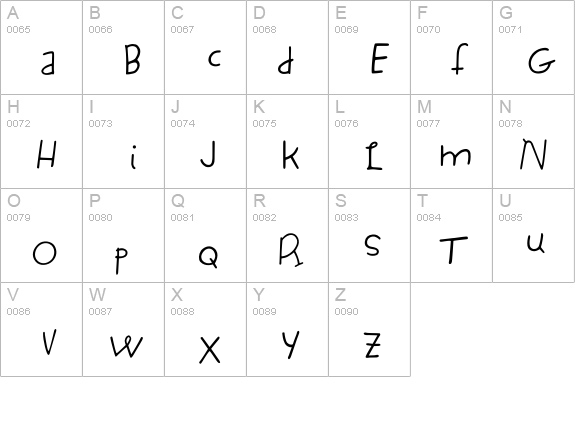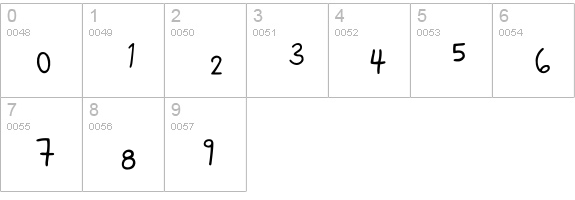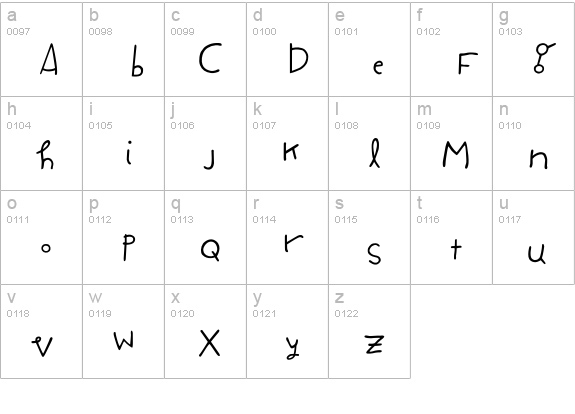
Ultraduck Font Details
Introducing Ultraduck, a bold and charismatic font that will make your designs quack-tacular! This free font is perfect for those looking to add a touch of fun and playfulness to their projects. With its clean lines and distinctive curves, Ultraduck is sure to captivate and delight. Whether you're designing a logo, creating eye-catching headlines, or crafting a memorable branding campaign, Ultraduck will effortlessly elevate your designs to new heights. Its versatility allows it to be used in a variety of contexts, from playful children's books to modern and trendy websites. But what makes Ultraduck truly special is its availability as a free download on FontsMarket.com. Yes, you read that right - this delightful font can be yours for absolutely free! FontsMarket.com is a trusted and reputable source for high-quality fonts, and Ultraduck is no exception. So go ahead and add this feathered friend to your font collection without breaking the bank. With Ultraduck, your designs will instantly come to life with a whimsical charm that is hard to resist. Whether you're a professional designer or a hobbyist, this font is a must-have in your creative toolkit. So spread your wings and let Ultraduck take center stage in your next project – the possibilities are endless!